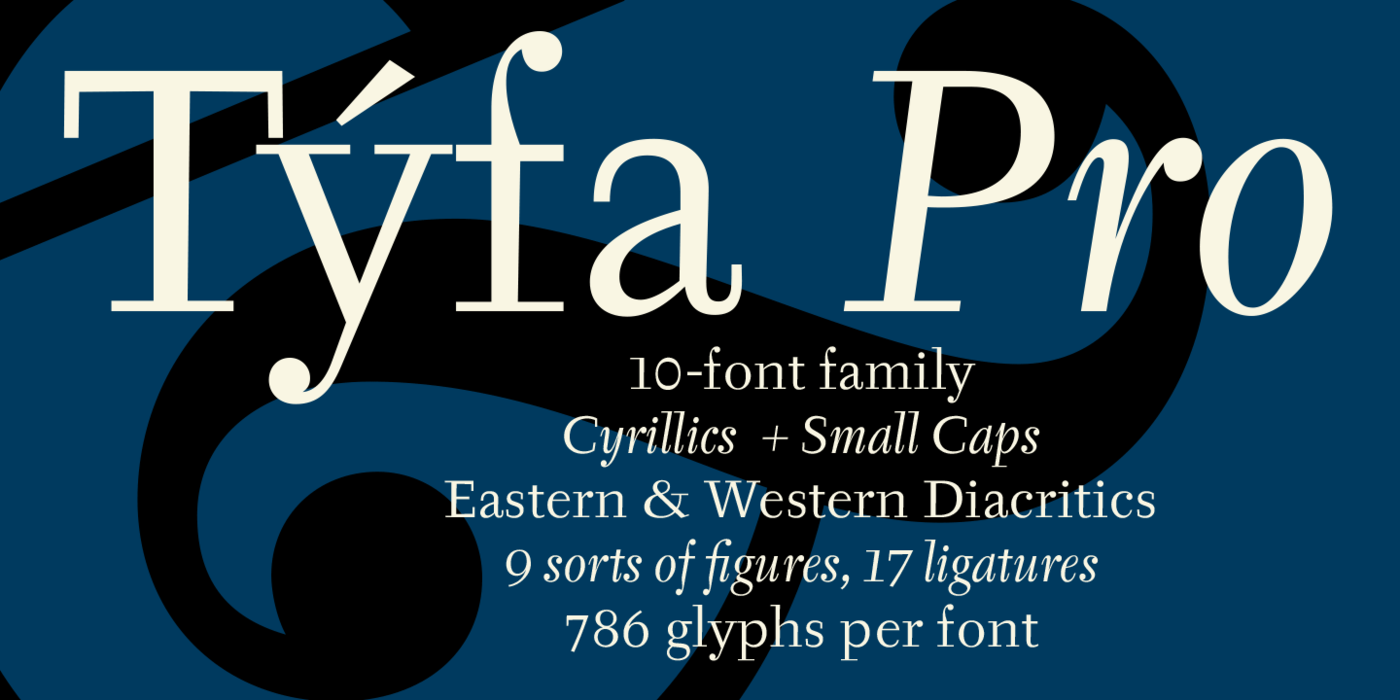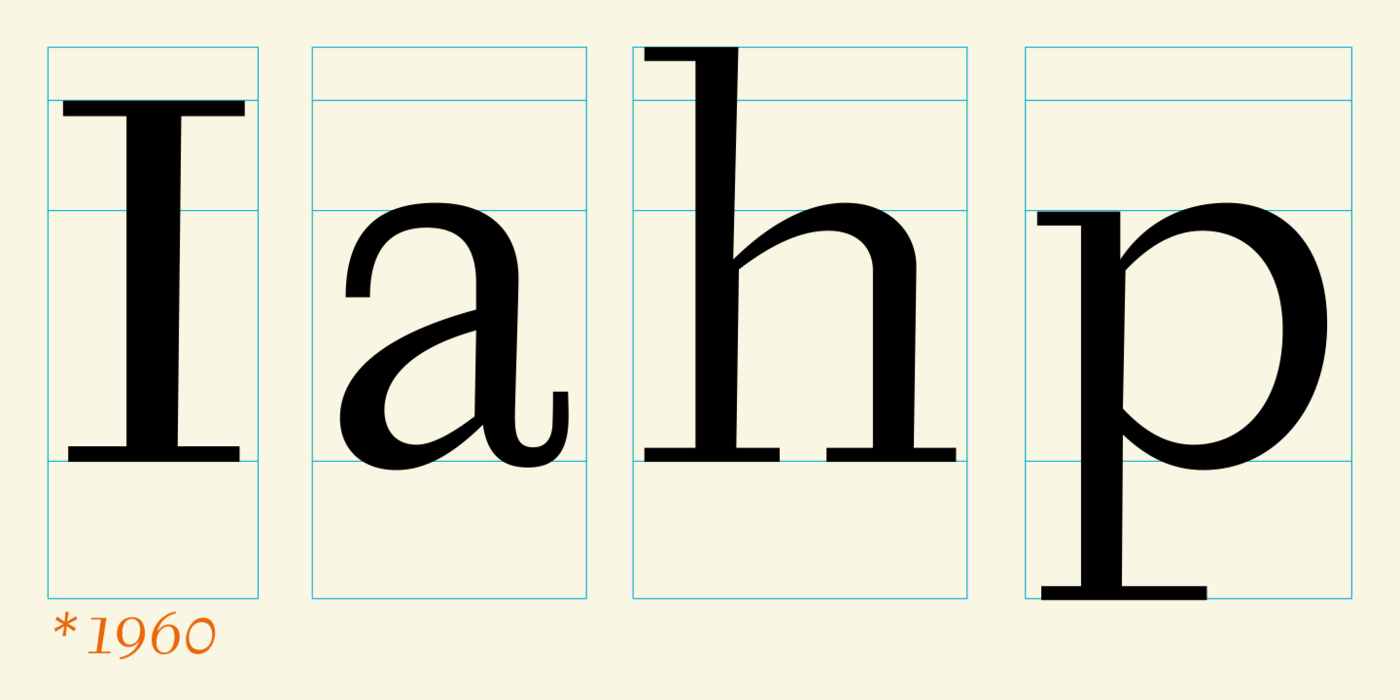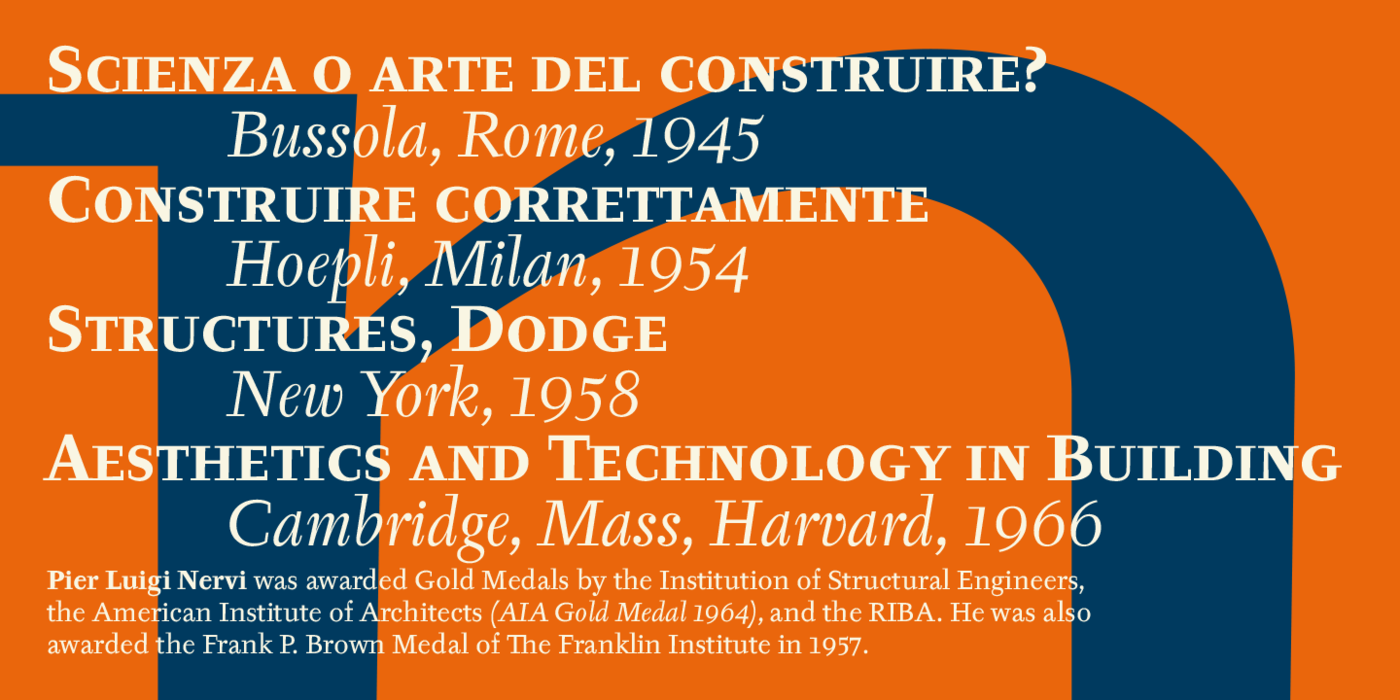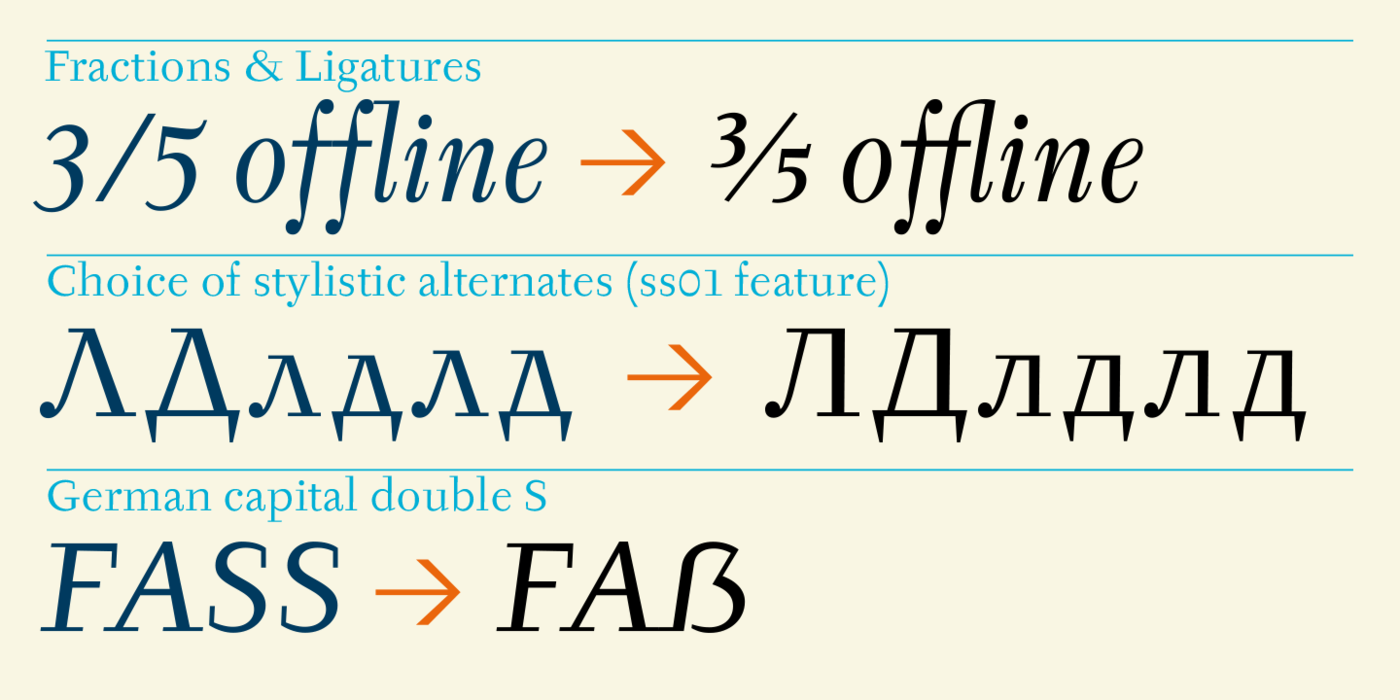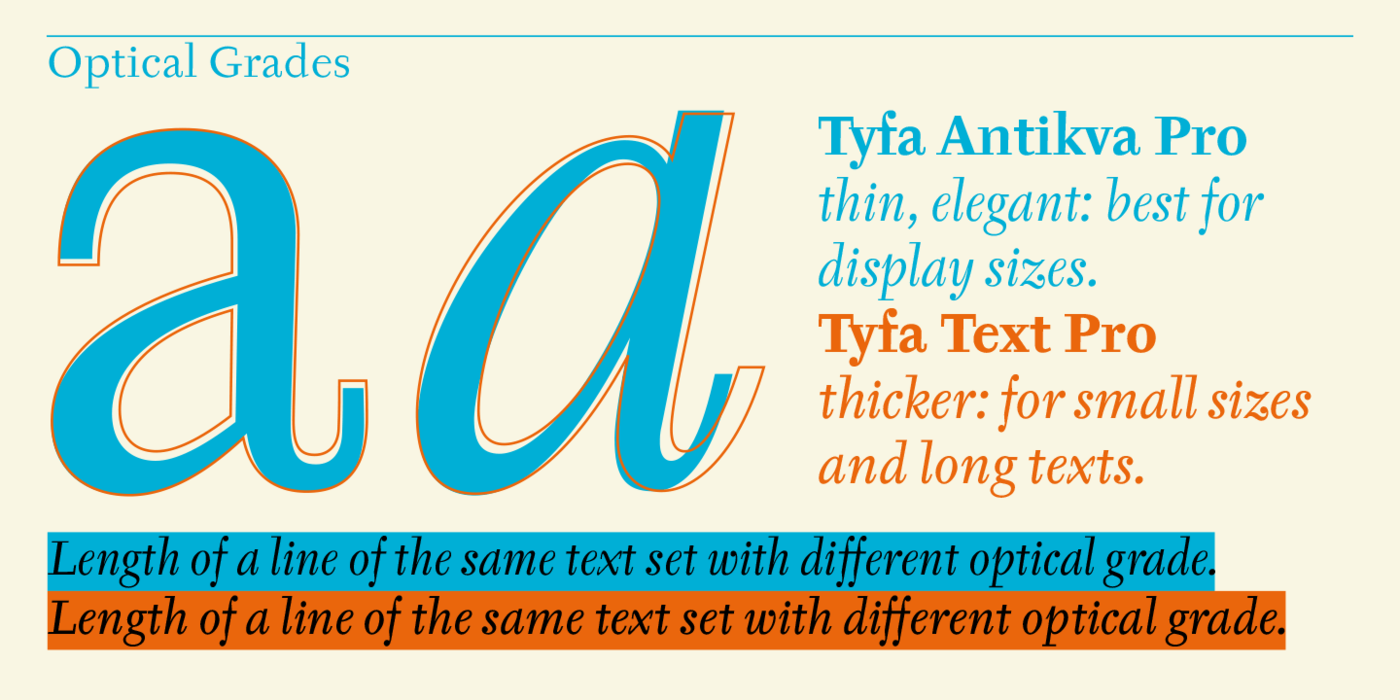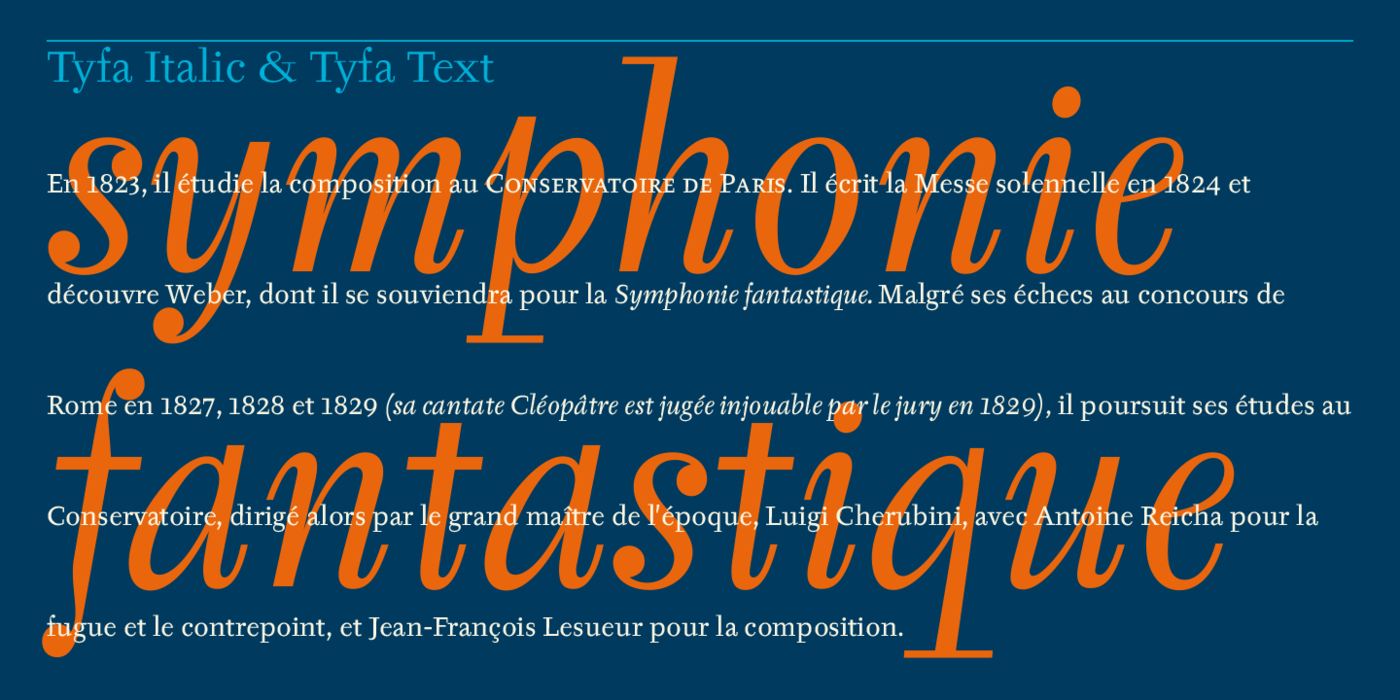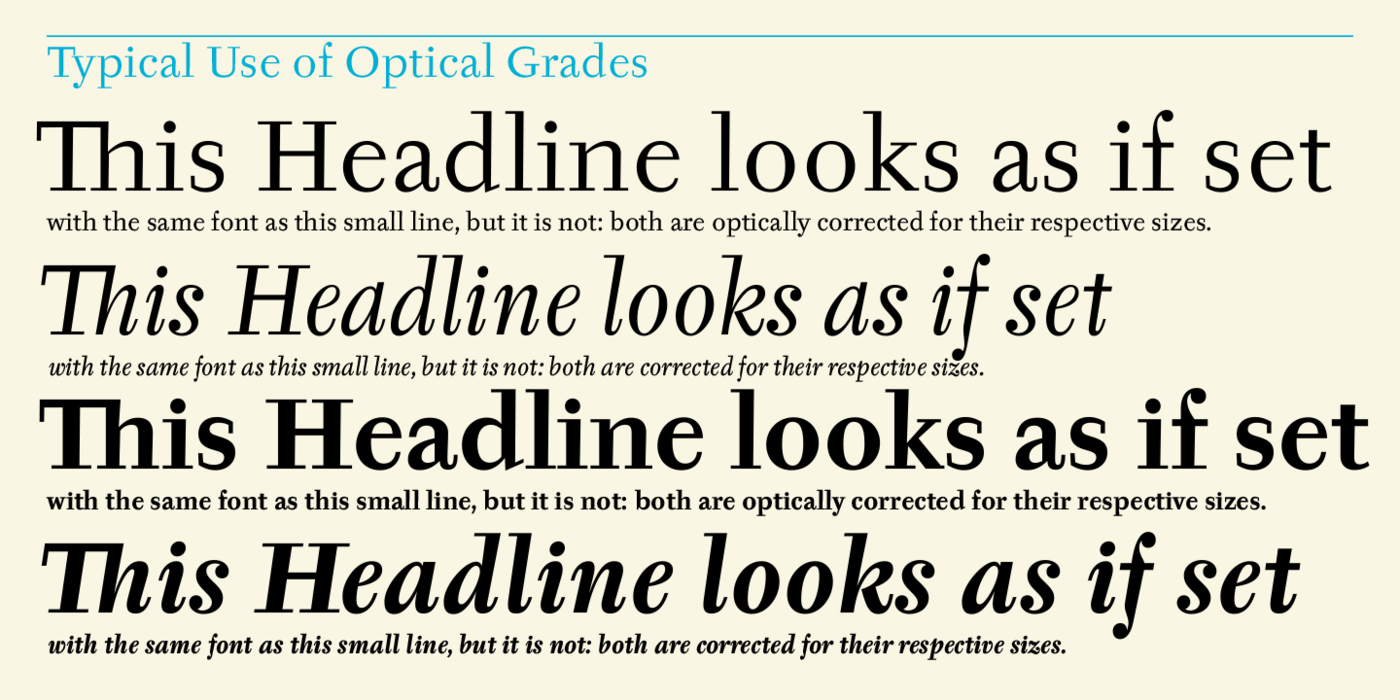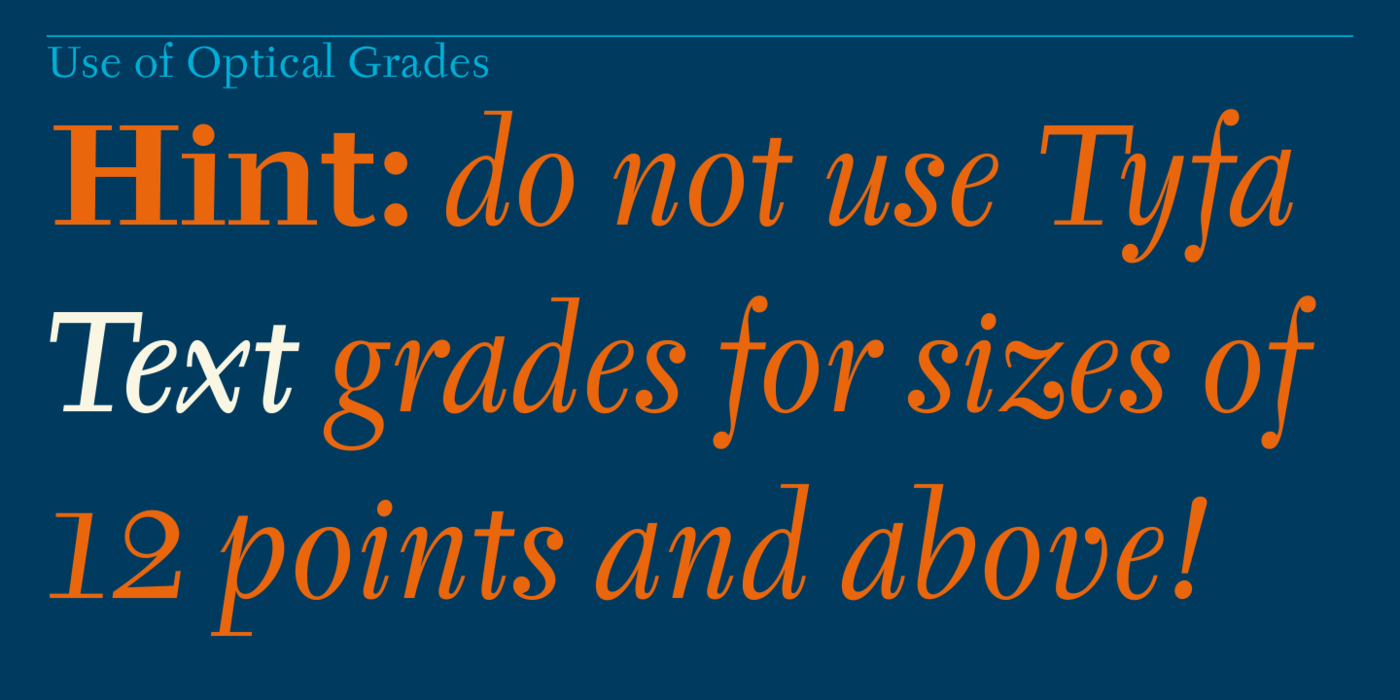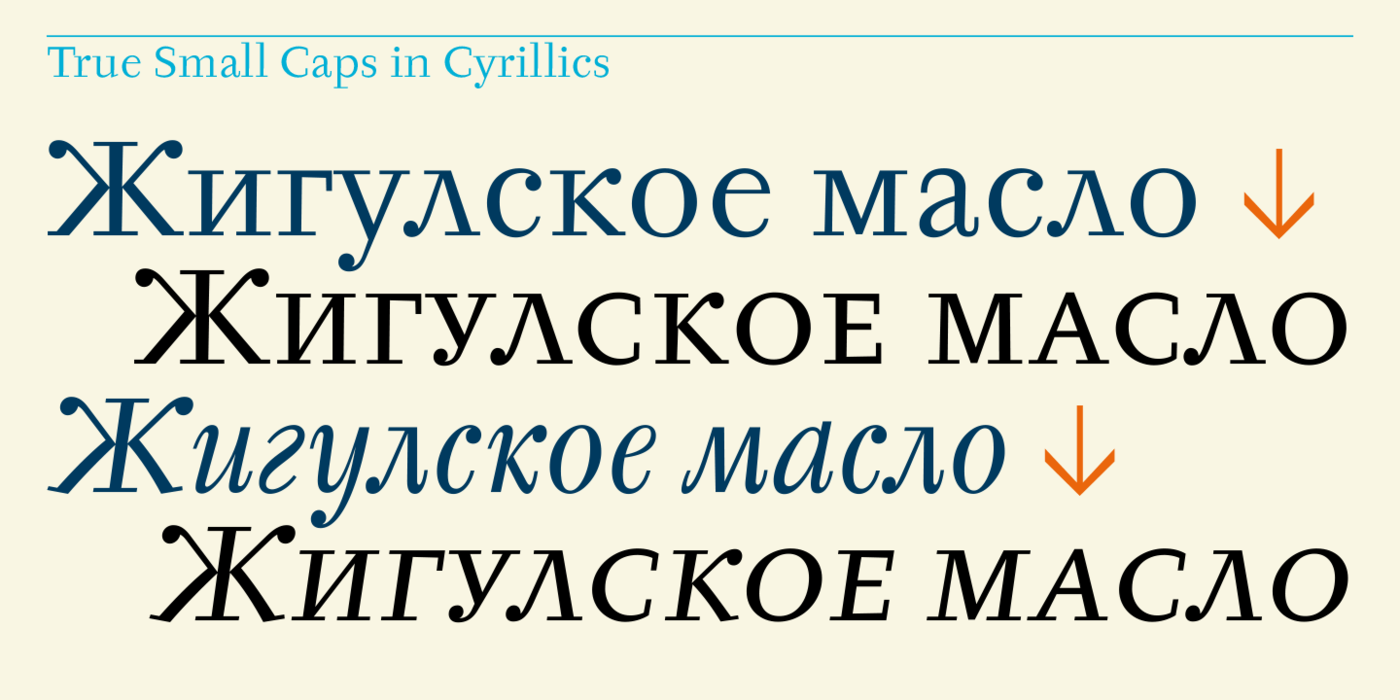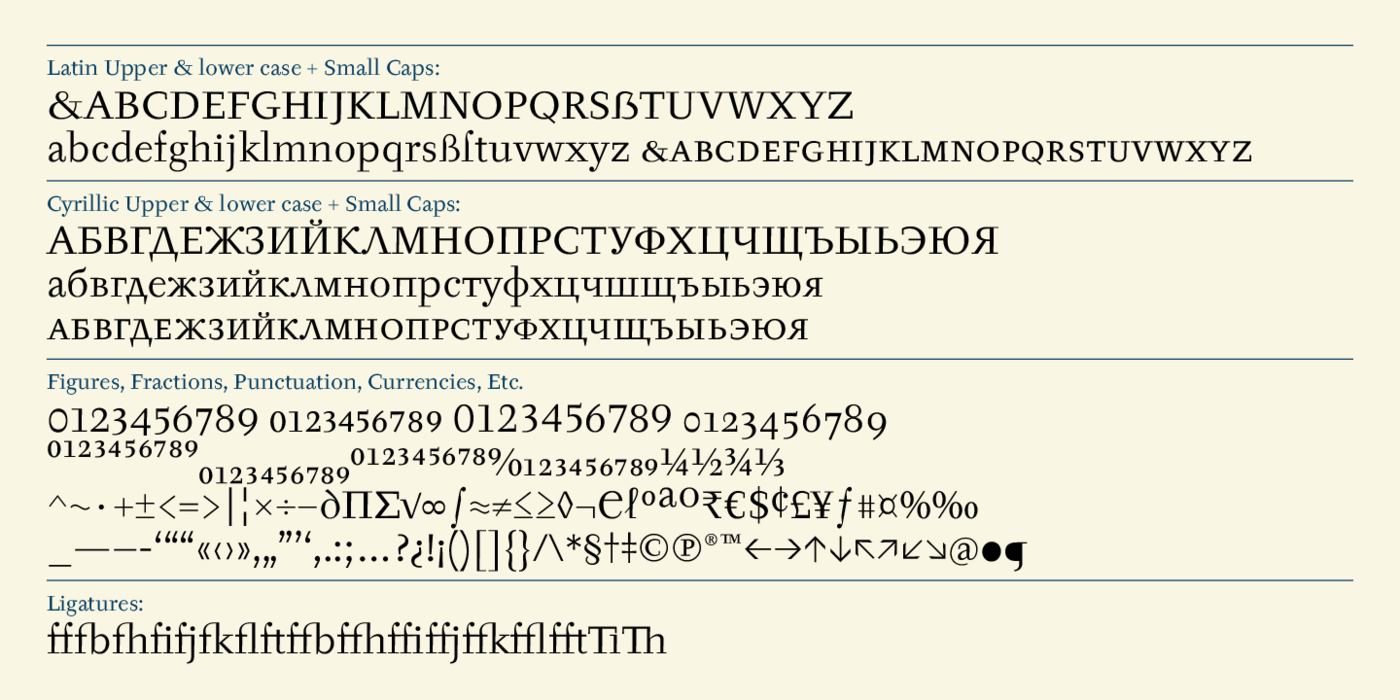
by Josef TýfaThis Antikva and Italic are well-known perhaps to all Czech graphic artists and typographers ever since their release. Although this type face in some details is under the sway of the period of its rise, its importance is timeless, in contradistinction to other famous types dating from the turn of the sixties which were found, after some time, to be trite. The italics live their own life, only their upper-case letters have the same expression as the basic design. Thin and fragile, they work excellently, emphasizing certain parts in the text by their perfect contrast of expression. When seen from a distance they are a little bit darker than the Roman face. Tyfa Roman was released in 1960 by Grafotechna in Prague for hot setting. Later on, Berthold produced letter matrices for Staromat devices, used for manual photosetting of display alphabets. In the eighties it was available on dry transfers of Transotype and today it is offered also by ITC.
The meticulously executed original designs dating from late 50s are arranged into a set of signs on a cardboard of about B2 in size. The yellowed paper reveals retouches by white paint on the ink. Blue lines mark the baseline, the capital line, the ascender and descender lines and the central verticals of the letters. With regard to the format of the flat scanner, the designs had to be reduced, with the use of a camera, to the format A4, i.e. to the upper-case letter height of about 30 mm. These were then scanned and read as a bitmap template to the FontStudio program. The newly created bold weights derive from Tyfa's only drawings of the bold letters "a", "n", "p", the darkness of which was increased further, to enhance their emphasizing function. We have used electronic interpolation to produce the medium weights. Josef Tyfa himself recommends to choose a somewhat darker design than the basic one for printing of books. The text designs have hairstrokes thickened by one third; the contrast between thin and thick strokes has been modified, in order to improve legibility, in sizes under 12 points.
Týfovu antikvu & kursivu znají snad všichni čeští grafici a typografové. Nemá smysl ji zařazovat do kontextu původní české písmařské tvorby, když se sama řadí do kontextu evropského i světového. Přestože je některými detaily formálně poplatná době svého vzniku, jedná se o písmo nadčasového významu, na rozdíl od jiných slavných písem z přelomu 50. a 60. let, která se po čase okoukala. Kursiva žije svým životem, se základním řezem má společný výraz jen ve versálkách. Štíhlá a křehká, znamenitě funguje – vyznačuje v textu svým dokonalým výrazovým kontrastem. Zdálky je nepatrně tmavší než antikva. Týfova antikva byla v roce 1960 vydána Grafotechnou pro horkou sazbu, později Berthold vyrábí písmové matrice – „pravítka“pro ruční titulkové fotosázecí přístroje. V osmdesátých letech se dala sehnat na suchých obtiscích Transotype, dnes je i v nabídce ITC.
Přepečlivé, pedantsky provedené kresby jednotlivých liter o výšce kuželky 24 cicer jsou seskupeny ve znakovou sadu na karton formátu cca B2. Pokročilé žloutnutí papíru odhaluje retuše bělobou. Modré linky vyznačují účaří a střední vertikálu liter. Vzhledem k formátu plochého scanneru musely být kresby kamerou zmenšeny do formátu A4, tedy do výšky versálek cca 30 mm. Ty pak byly nascannovány v rozlišení 600 dpi a načteny jako bitmapová předloha do programu FontStudio.
Nově vytvořené tučné řezy vycházejí z Týfových kreseb liter a, n, p, jejichž tmavost byla zvětšena ještě asi o 3 %, kvůli lepší vyznačovací funkci. Textové řezy mají vlasové tahy zesíleny asi o třetinu, zmírněn je kontrast slabých a silných tahů pro zlepšení čitelnosti ve velikostech pod 12 typografických bodů. Při výrobě půltučných řezů jsme si opět pomohli elektronickou interpolací. Josef Týfa sám doporučuje knížky tisknout poněkud tmavším řezem, než je základní.